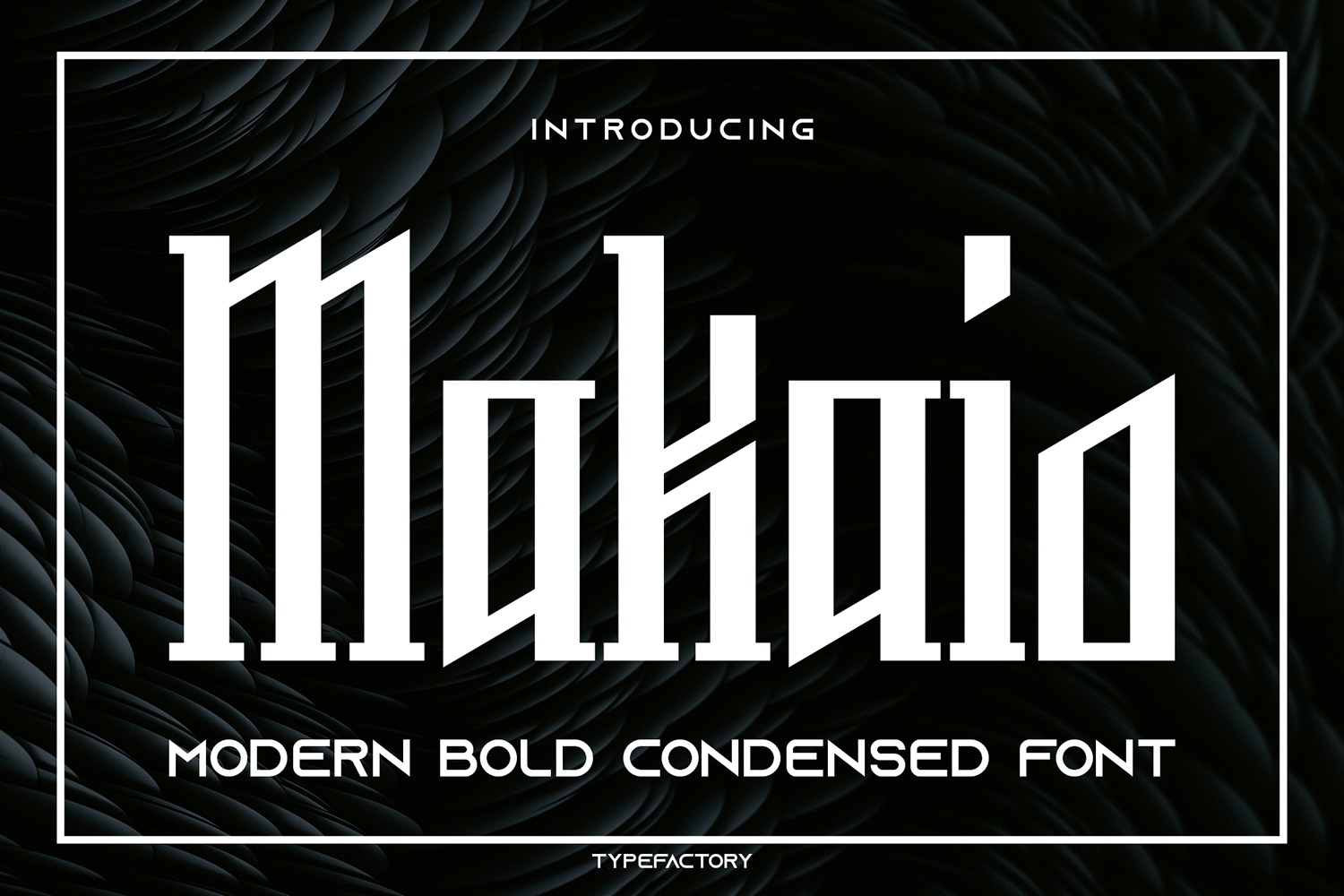
Makaio – Modern Condensed Font
Makaio – Modern Condensed Font is a distinctive and expressive font crafted to bring personality, structure, and creative energy into your projects. Makaio is a modern condensed display font featuring tall proportions, sharp geometric details, and bold vertical letterforms that create a clean yet distinctive appearance. Designed for impactful headlines, logos, branding, posters, editorial layouts, packaging, music covers, fashion campaigns, and digital content, Makaio delivers strong visual presence while maintaining excellent readability. Complete with uppercase, lowercase, numerals, punctuation, multilingual support, ligatures, and alternate characters, this typeface offers versatility for a wide range of creative projects.
Features:
– Uppercase – Lowercase – Symbols & Punctuation – Numeral – Ligature – Multilingual Support